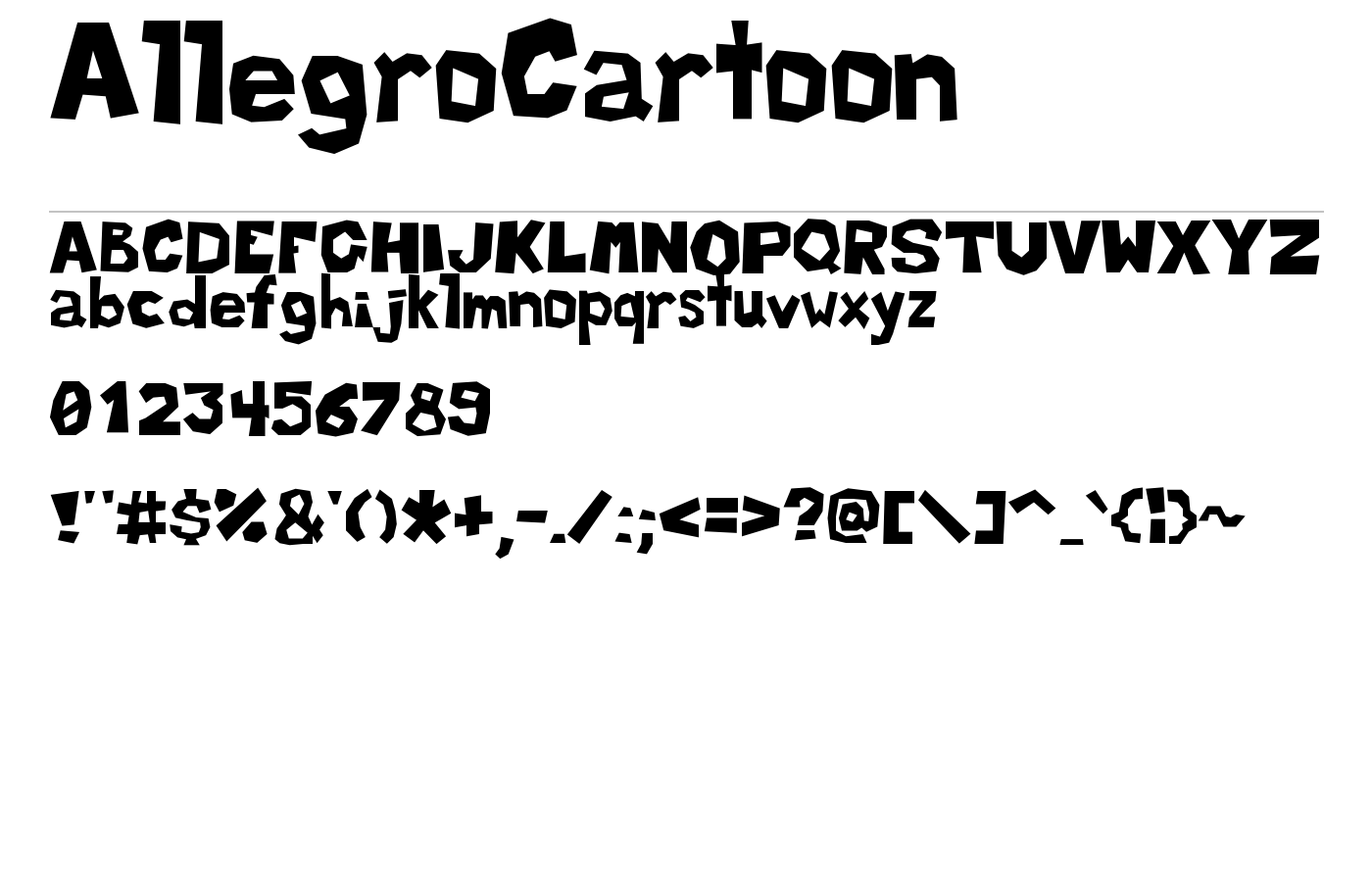
AllegroCartoon is a bold and playful sans serif font characterized by its irregular, chunky shapes and sharp angles, giving it a whimsical and hand-crafted feel. Its high x-height and tight spacing create a compact but lively appearance, making it perfect for fun, informal designs like children’s books, cartoons, posters, and branding that needs a youthful, energetic vibe. This font’s quirky personality makes it stand out for creative projects that want to convey humor and approachability.
AllegroCartoon Font